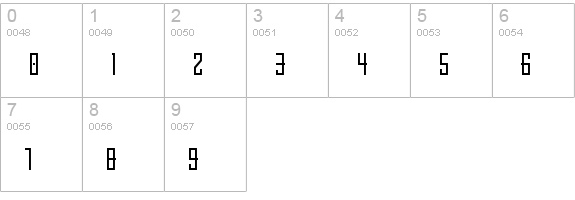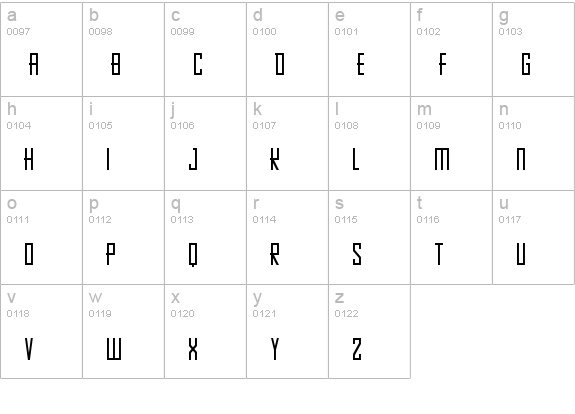
Pixelopolis 9000 Font Details
Pixelopolis 9000 is a free for personal use font in the Fancy > Pixel category, designed by Darrell Flood. It has been downloaded 180 times and is available for Windows, Mac and Linux.
Introducing the stunning Pixelopolis 9000 font, a meticulously crafted typeface that combines futuristic vibes with a touch of retro nostalgia. This unique font features pixelated edges and sharp lines, giving your designs a cutting-edge look that is sure to captivate audiences.
Pixelopolis 9000 is the perfect choice for projects that require a modern and dynamic feel, such as tech-related designs, gaming graphics, and digital art. Its sleek and futuristic appearance will make your text stand out and leave a lasting impression on viewers.